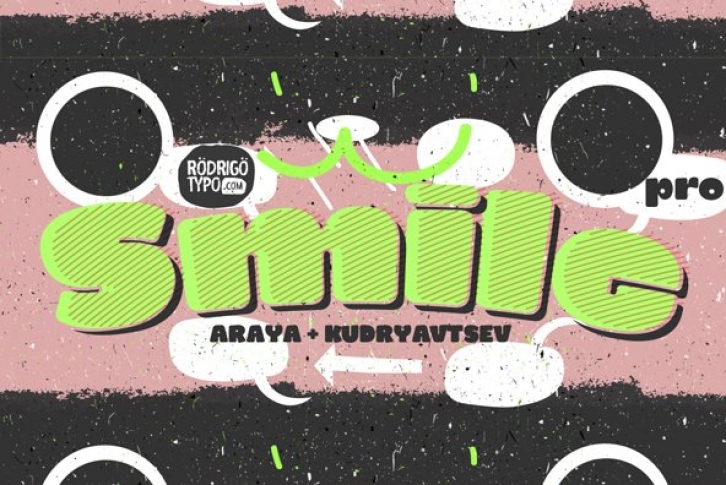
Name: Smile pro
Year: 2015
Author: Rodrigo Araya + Andrey Kudryavtsev
Concept: redesign of "Smile" in 2013, this typeface contains different styles, a heavy sans serif type, especila for children's titles and alphabet Cyrillic.